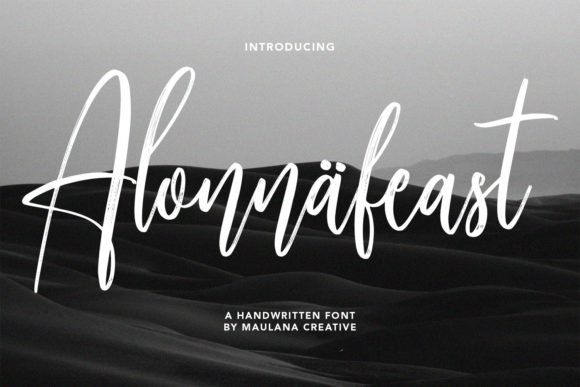
Introducing Alonnafeast Font, an Exquisite Script Masterpiece for Captivating Creations:
In the world of digital artistry, where words take on a life of their own, Alonnafeast Font emerges as a captivating script, ready to transform your designs into breathtaking masterpieces. With its graceful curves and elegant strokes, Alonnafeast evokes a timeless charm that adds a touch of sophistication to any project.
Unleash Your Creativity with Endless Possibilities:
With Alonnafeast Font at your fingertips, unleash a world of unlimited creativity. Embrace the beauty of handwritten typography, and craft designs that speak volumes. From wedding invitations to thank you cards, quotes, and business cards, Alonnafeast seamlessly blends elegance and playfulness, leaving a lasting impression on your audience.
Craft Products that Allure with Timeless Allure:
Alonnafeast Font is the perfect choice for businesses seeking to make a lasting impression. Create logos that exude confidence and leave a lasting impression. Elevate your packaging with intricate details that add a touch of luxury. Unleash the full potential of your branding with Alonnafeast, and watch as it effortlessly captivates hearts.
Express Your Emotions with Unparalleled Beauty:
Alonnafeast Font goes beyond mere aesthetics; it is an expression of your innermost emotions. Each character, crafted with meticulous attention to detail, conveys a message of elegance and grace. Whether you're crafting personal messages, creating social media content, or developing unique products, Alonnafeast adds a touch of magic that resonates with your audience.